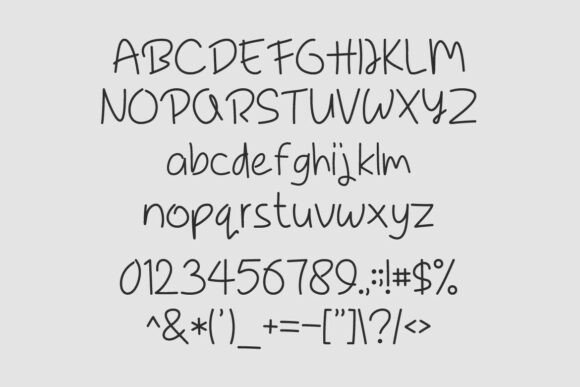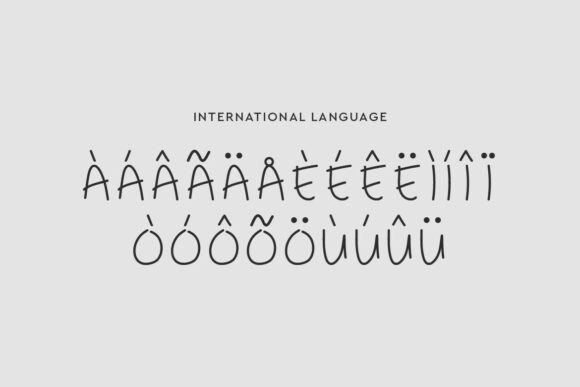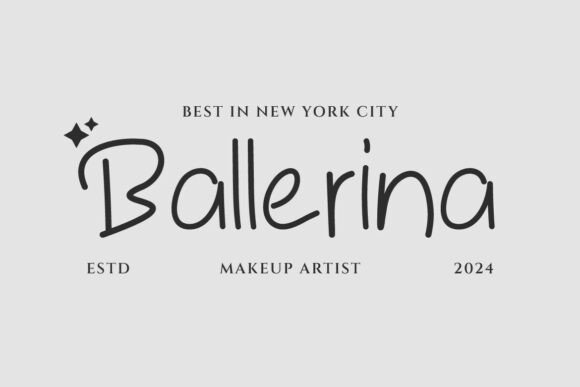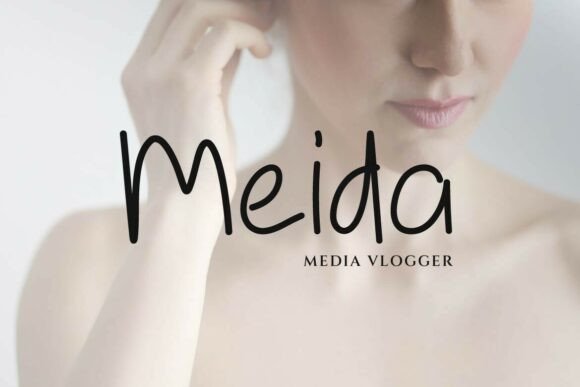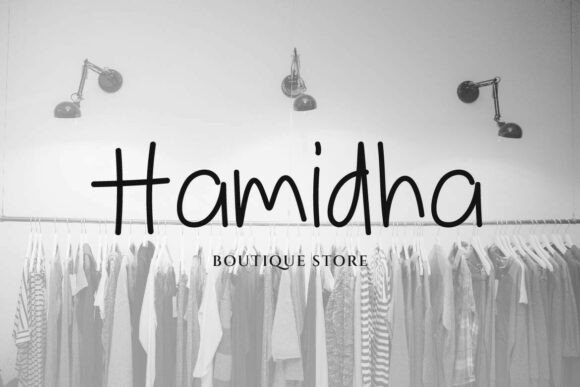
Introduction to Kidle Font
Have you ever sat down with a blank sheet of paper, a pen in hand, and let your imagination run wild? That’s the moment when creativity takes over, and the possibilities seem endless. For designers, finding the right font to capture that spark of imagination can be a game-changer. Enter Kidle Font, a high-quality, handwritten font that’s about to become your new best friend.
Kidle Font is a design resource that’s perfect for bringing a touch of warmth and personality to your creative projects. With its natural strokes, bouncy baseline, and organic flow, this font is ideal for children’s books, cute branding, greeting cards, social media posts, packaging, and more. And the best part? It’s available for free download with a transparent background, making it easy to integrate into your design.
Whether you’re a seasoned designer or just starting out, Kidle Font is a valuable addition to your toolkit. Its friendly and approachable feel makes it perfect for a wide range of applications, from social media posts to packaging design. So why settle for a generic font when you can add a touch of personality to your work with Kidle Font?
Key Features of Kidle Font
- High-quality design resource with a unique and playful style, ideal for creative projects.
- Unique characteristics, such as rounded edges and subtle texture, add a touch of personality to any design project.
- Perfect for designers, artists, and writers looking for a high-quality, free design resource to enhance their creative projects.
Honest Review: Kidle Font
I recently had the chance to work with the Kidle Font, and I’m excited to share my honest thoughts. As a designer, I’m always on the lookout for high-quality design resources that can elevate my creative projects.
One of the things that works well with the Kidle Font is its versatility. It’s perfect for a wide range of applications, from branding and advertising to digital products and print materials. The font’s clean and modern design makes it a great choice for any project that requires a touch of sophistication.
- Perfect for a wide range of applications
- Clean and modern design
- May not be suitable for projects that require a more playful or whimsical tone
- Does not include a wide range of font weights or styles
Kidle Font
The Kidle Font is perfect for various creative projects, including:
1. Graphic design
2. Branding
3. Digital art